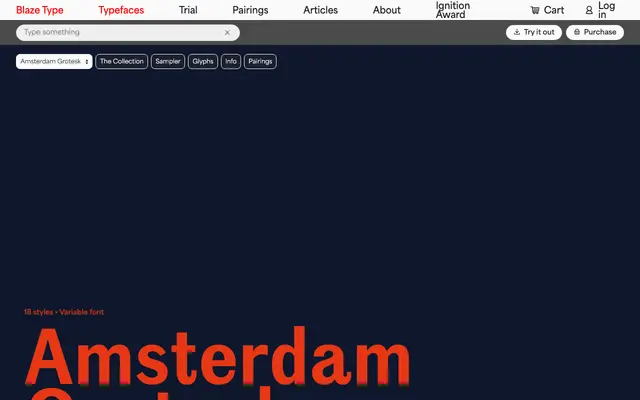
Amsterdam Grotesk
A revival of a wood type grotesque sourced from a Brussels printing workshop, drawn with calligraphic terminal strokes and generous bowl forms across nine weights.
Designed by Yann Esnault and released in 2025, the family traces its origins to wooden type discovered at Unitype, an old Brussels workshop. The letterforms retain the idiosyncratic charm of their source material while being stabilised for contemporary use in editorial systems, signage and branding. All 18 styles are available as a variable font spanning weight and italic axes.
A revival of a wood type grotesque from a Brussels workshop, the page explicitly frames it within the Grotesque/Gothic tradition with calligraphic inflections in its terminal strokes and bowl forms.